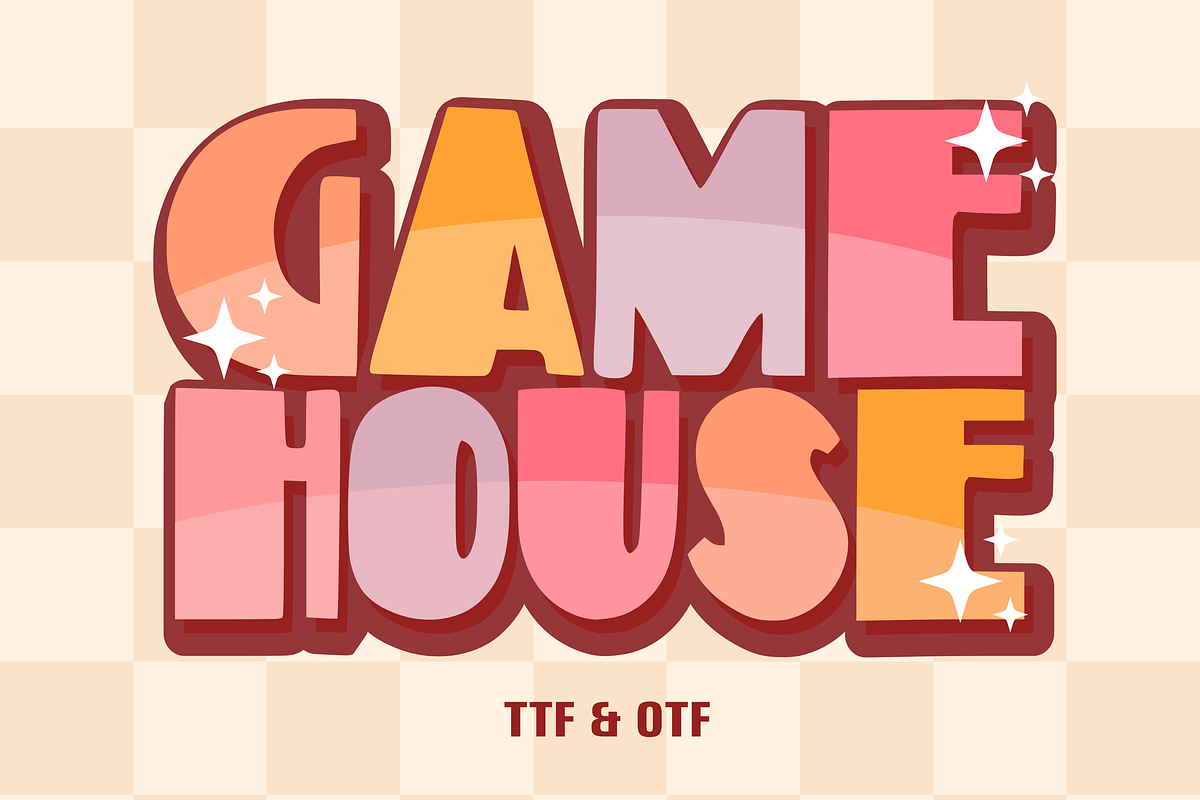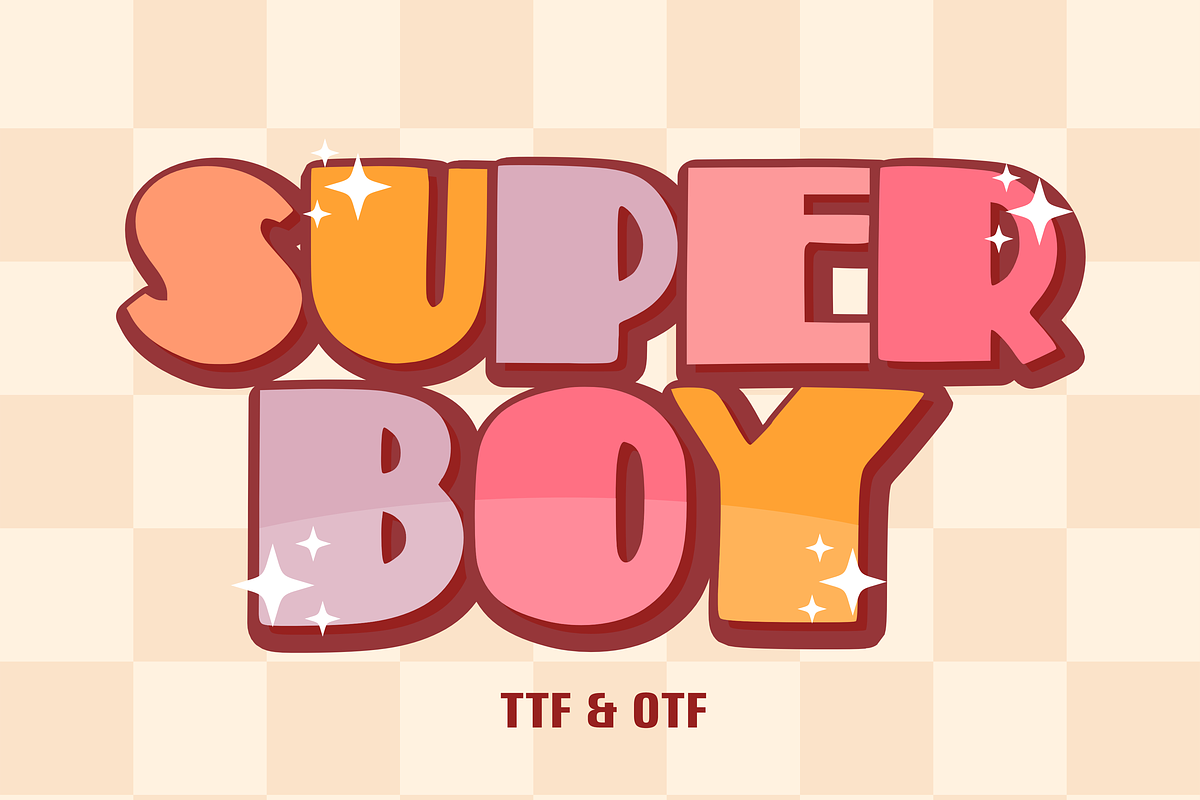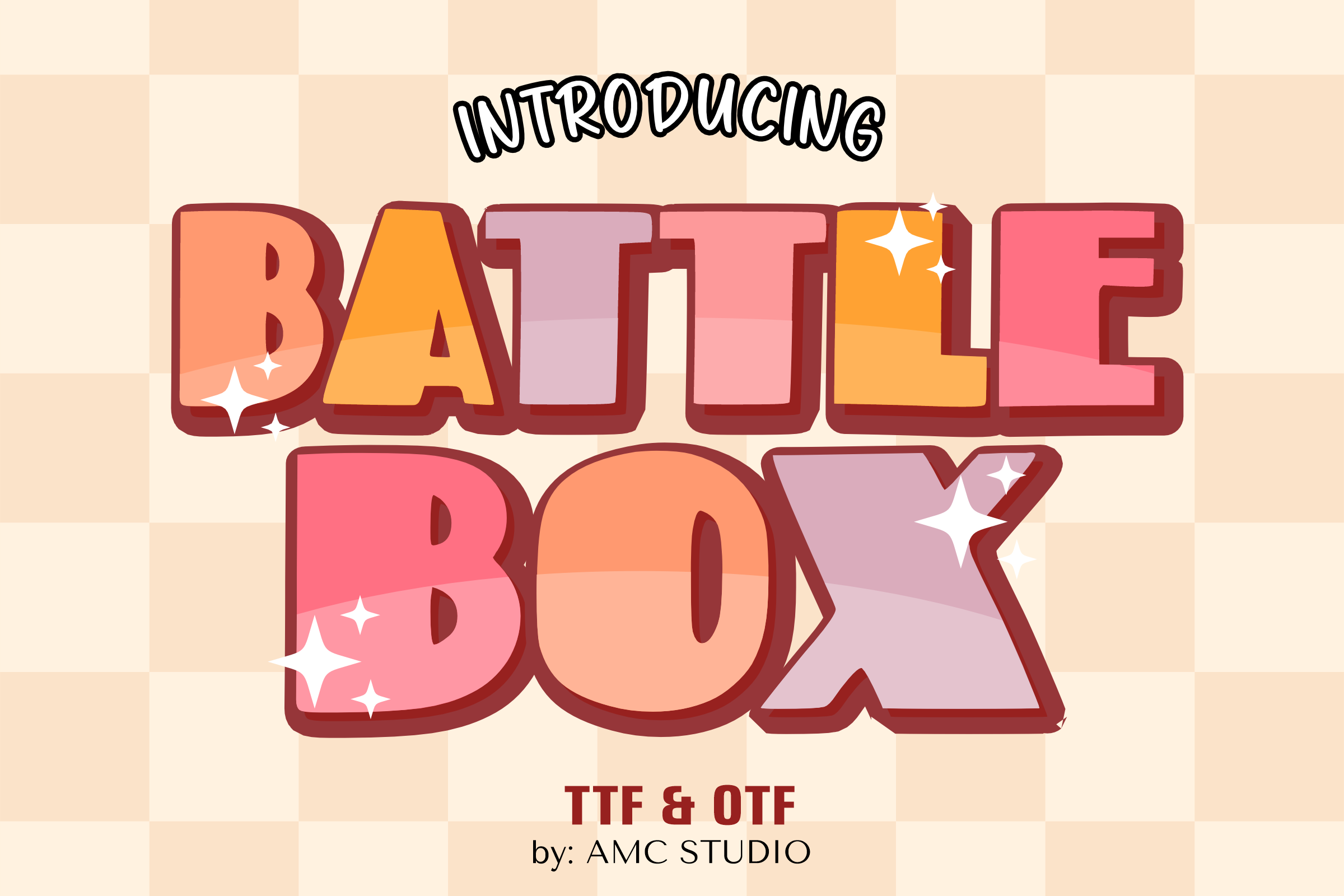
Battle Box - Game Font Types
Battle Box is a children’s play font that brings fun and imagination to your projects. With its retro style and appearance, this font offers promise for a variety of creative endeavors. Let this font add a pop of color and aesthetic elements to your designs, suitable for everything from posters, stickers, comics, children’s books, and more.